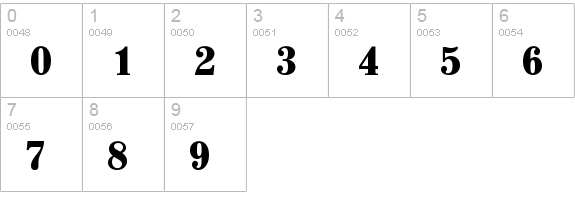
ValenciaSerial-Heavy-Regular is a heavy, high-impact variant in the ValenciaSerial typeface family \xE2\x80\x94 well suited to high-impact headlines, posters, and display advertising.
ValenciaSerial-Heavy-Regular is a bold and eye-catching font that exudes confidence and modernity. Its thick strokes and clean lines make it perfect for creating impactful headlines, posters, and branding materials. This versatile typeface strikes the ideal balance between being strong and approachable, making it suitable for a wide range of design projects. What's even better is that ValenciaSerial-Heavy-Regular is available for free download at FontsMarket.com. This means you can easily access this striking font and incorporate it into your designs without any cost. Don't miss out on the opportunity to elevate your projects with the bold and dynamic aesthetics of ValenciaSerial-Heavy-Regular. Download it today and start making a statement with your typography!